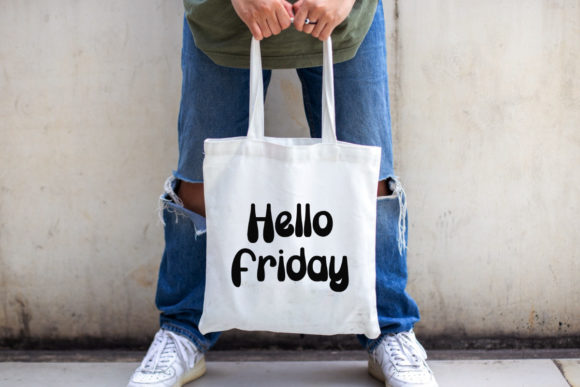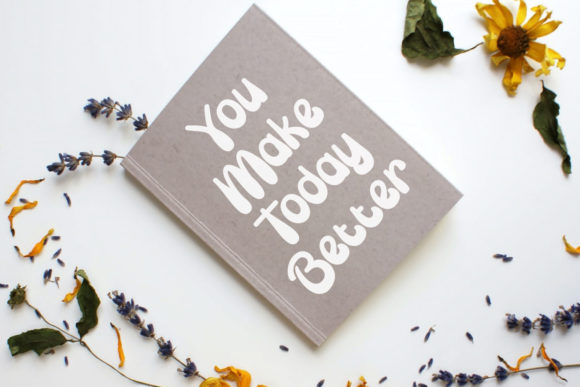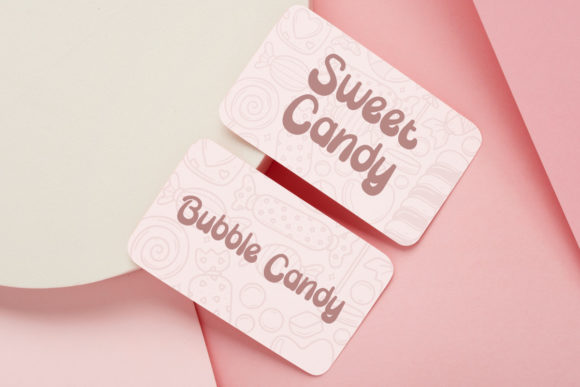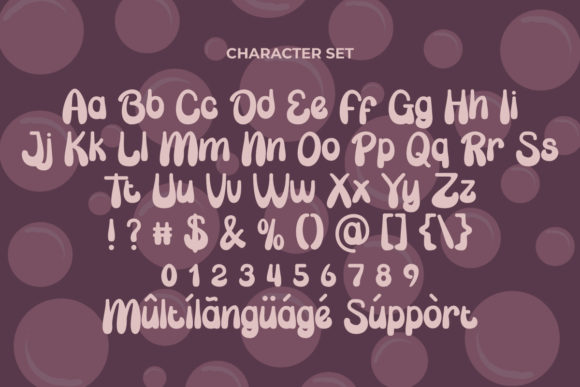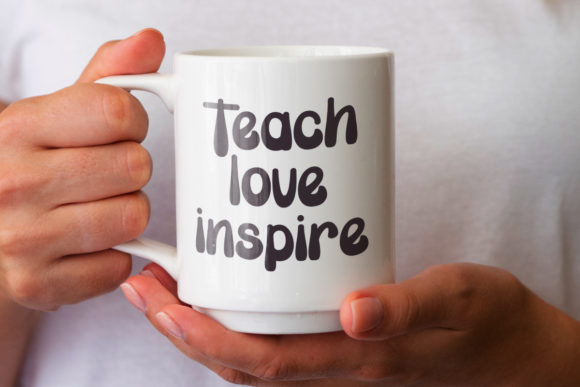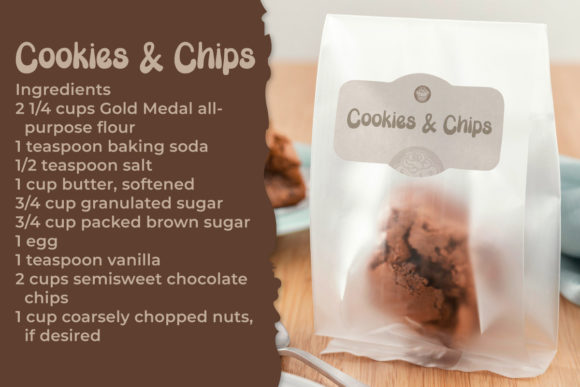
Bubble Candy Font: Elevate Your Designs with a Cool and Trendy Display Font
In the world of design, fonts play a crucial role in conveying the tone and personality of a brand or project. If you’re looking for a font that exudes coolness and trendiness, look no further than the Bubble Candy Font. This display font is defined by its smooth curves, making it perfect for fashion branding, editorial designs, and a wide range of creative projects.
The Characteristics of Bubble Candy Font
Bubble Candy Font is a unique and stylish font that boasts smooth, flowing curves. Its design is characterized by:
• Smooth Curves: The font features smooth, rounded curves that give it a soft and approachable feel.
• Trendy and Modern: The Bubble Candy Font has a distinctly modern and trendy vibe, making it perfect for designers who want to create fresh and youthful designs.
• Display Font: As a display font, Bubble Candy is designed to make a statement. It’s perfect for headlines, titles, and other prominent text elements.
Perfect for Fashion Branding and Editorial Designs
Fashion branding and editorial designs require fonts that are stylish, sophisticated, and attention-grabbing. The Bubble Candy Font ticks all these boxes, making it an excellent choice for:
• Fashion Logos: Create a stunning logo for your fashion brand that exudes style and sophistication.
• Editorial Headlines: Use Bubble Candy Font to create eye-catching headlines for your editorial designs, such as magazine covers, blog posts, and more.
• Social Media Graphics: Add a touch of elegance and sophistication to your social media graphics with this beautiful font.
Why Choose Bubble Candy Font?
With so many fonts available, why choose Bubble Candy Font? Here are just a few reasons:
• Unique and Exclusive: Bubble Candy Font is a one-of-a-kind font that will set your designs apart from the rest.
• Easily Readable: Despite its stylish and cursive design, Bubble Candy Font is easy to read, making it perfect for a wide range of applications.
• Versatile: This font can be used for a variety of design projects, from fashion branding to editorial designs, and more.
Tips for Using Bubble Candy Font
To get the most out of Bubble Candy Font, here are a few tips:
• Use it as a Display Font: Bubble Candy Font is designed to be used as a display font, so use it to create attention-grabbing headlines and titles.
• Pair it with Other Fonts: Experiment with pairing Bubble Candy Font with other fonts to create a unique and visually appealing design.
• Adjust the Size and Color: Play around with different sizes and colors to find the perfect combination for your design.
In conclusion, Bubble Candy Font is a cool and trendy display font that’s perfect for fashion branding, editorial designs, and a wide range of creative projects. Its smooth curves, modern vibe, and versatility make it an excellent choice for designers who want to create stunning and eye-catching designs. So why wait? Add Bubble Candy Font to your projects today and experience the difference for yourself!
• Bubble Candy Font is a cool and trendy display font defined by smooth curves.
• It’s perfect for fashion branding, editorial designs, and a wide range of creative projects.
• The font is unique, easily readable, and versatile.
• Use it as a display font, pair it with other fonts, and adjust the size and color to get the most out of Bubble Candy Font.